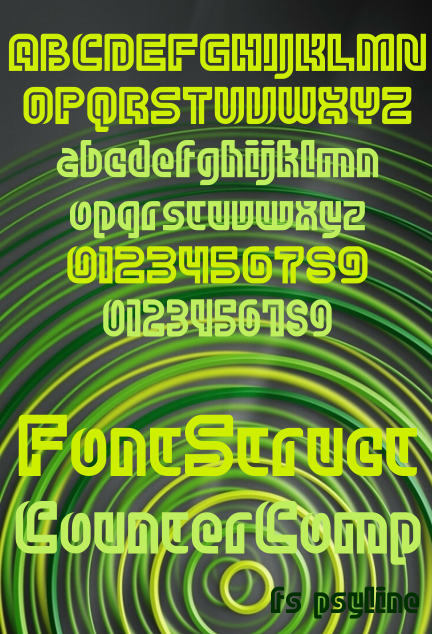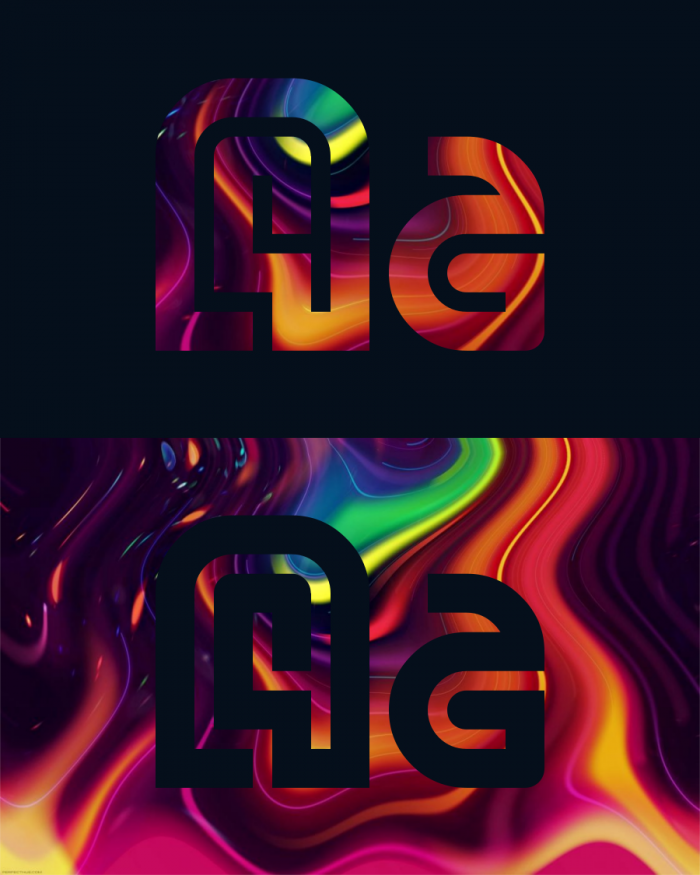
A funky idea that started with the A and expanded from there. Most letters are drawn by a single line winding around, although some are just not willing to follow this mantra. I found this half-finished while scrolling through my private FontStructions, looking for ideas for the CounterComp, and decided it was already an interesting entry :-)
There's an alternate, narrow set of numbers that can be reached with Shift+number (on a QWERTY, Dvorak, etc. layout); not sure which set fits the style better. Suggestions and critiques welcome for anything, and feel free to clone and poke around with it. Thanks and enjoy!
Great, great entry, sure winner IMHO! BTW, some glyphs appears to me like a little bit different from the rest (especially in the concept of the lower case). Need the accents, please.
Very nice shapes! Though there are some different approaches mixed together which maybe is a good thing (so that it's not too much modular).
Great winding letter forms.
Thanks, guys! Archi, I did try to combine different approaches to step a bit outside my modular comfort zone—whether or not it works is yet to be seen ;-) Elmo, I'll see what I can do about accents once the judging period is over.
Really attractive design, congrats for the special mention! I prefer the wider numbers.